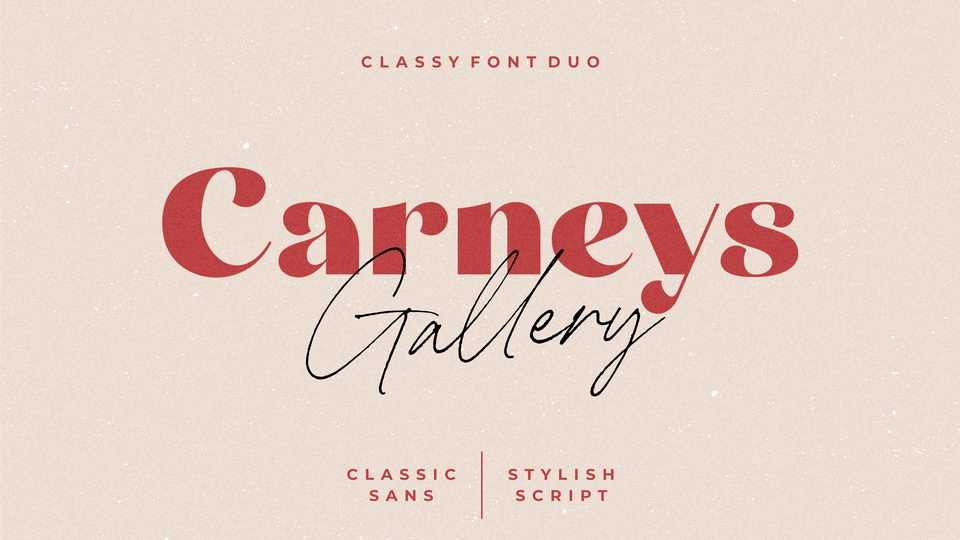
Carneys Gallery Font Duo › Fontesk – Download Grátis
Download Carneys Gallery typeface, a classy font duo, with a classic sans and script font. Carneys Gallery is handmade and carefully crafted so it will offer balance and beauty in your designs.
Designer: Letteralle Studio